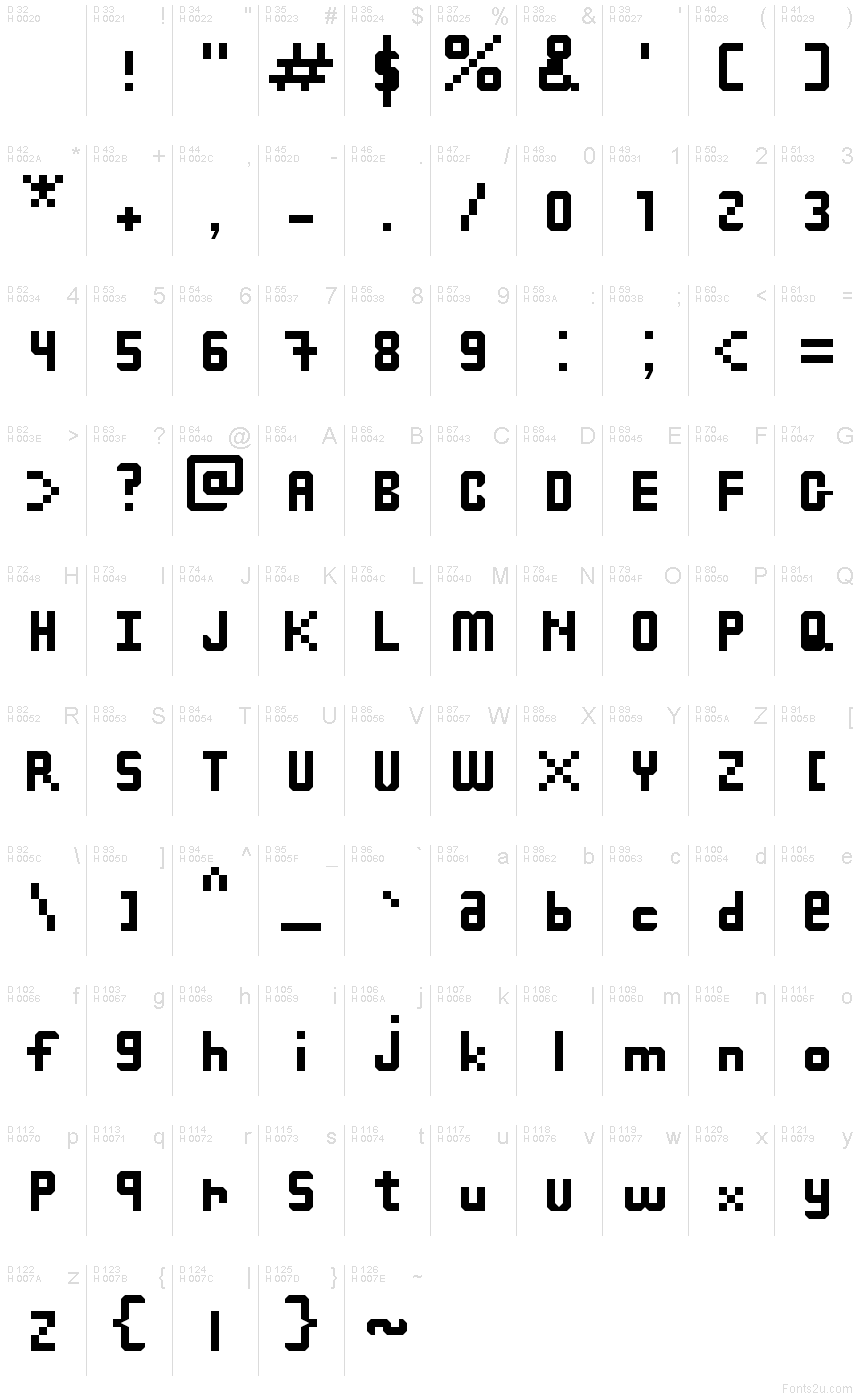
Modern Font Regular
Modern font by Fontz234 is a bold techno display typeface with balanced geometric shapes and modernist influences. Designed to deliver a futuristic feel, the font has sans serif inspirations and presents original characters in lowercase or all caps.